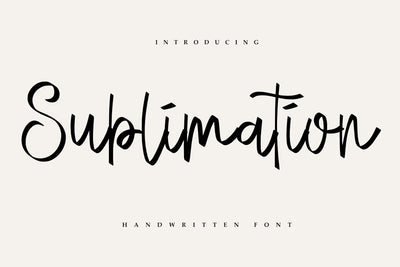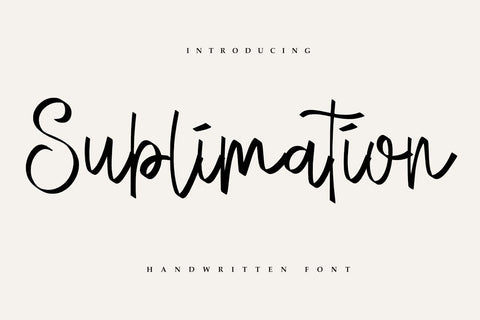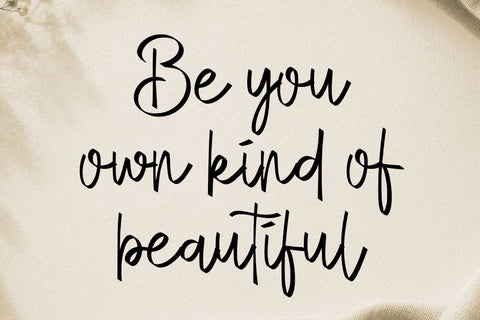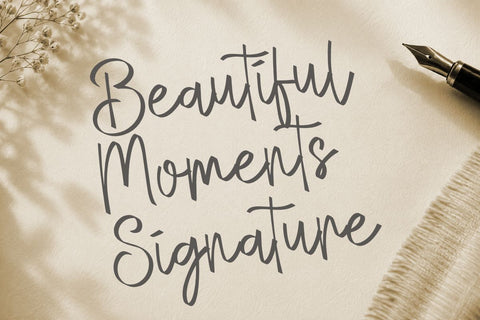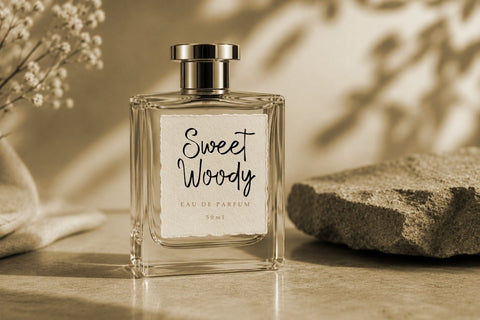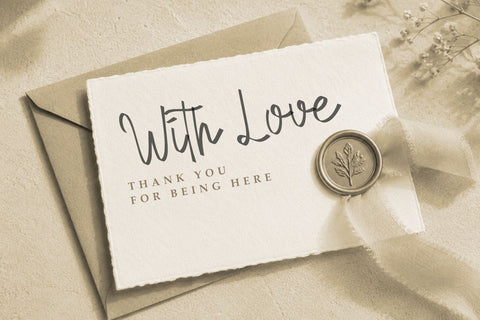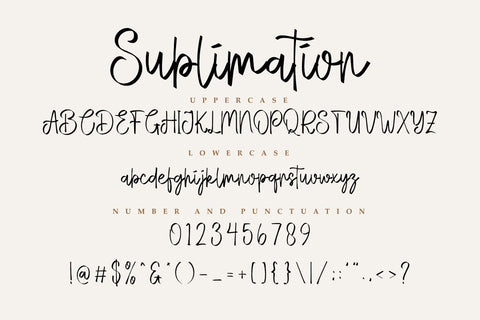
Sublimation - Handwritten Font
Sublimation is a charming and flowing handwritten font with a sweet cursive style. This lovely typeface is perfect for a wide range of creative projects, adding a warm, joyful, and romantic feel to every design. Ideal for branding, logos, wedding invitations, greeting cards, fashion designs, lookbooks, marketing materials, and any project that needs an elegant yet relaxed handwritten touch.